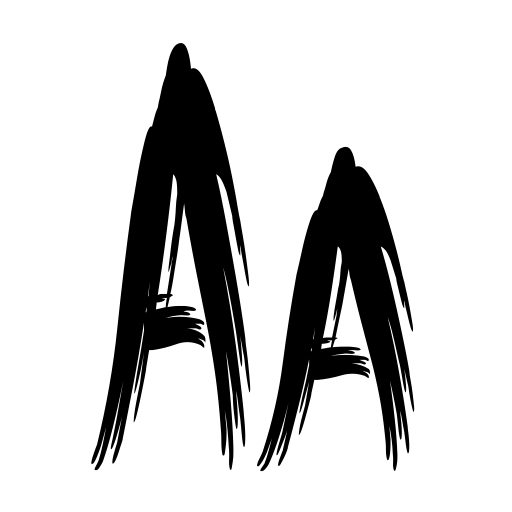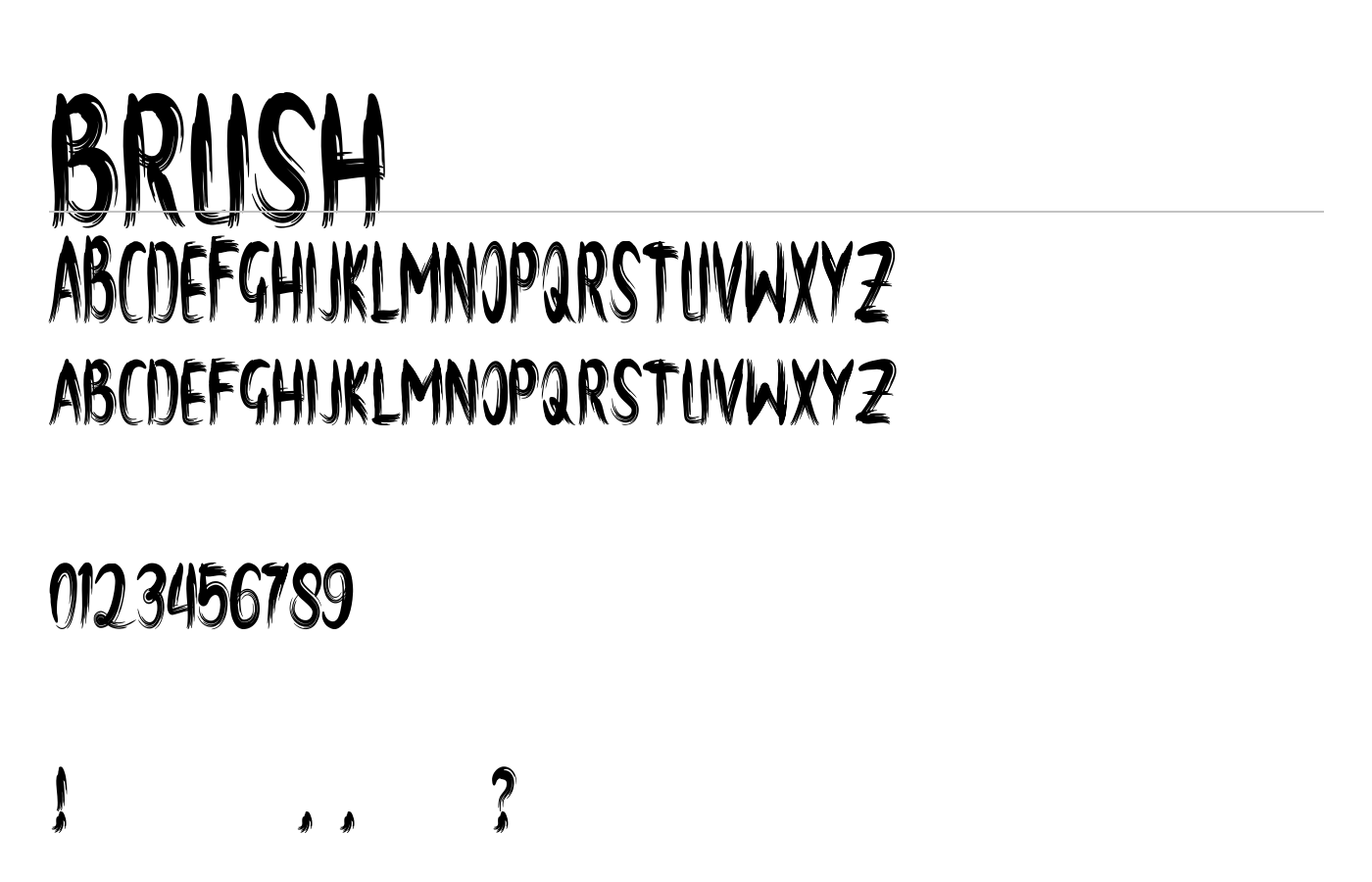
Brush Font is a distinctive, hand-drawn typeface with a bold, textured look that mimics the strokes of a paintbrush. Its tall, narrow letters and rough edges create a dynamic, artistic vibe, making it perfect for creative projects, eye-catching headlines, and expressive branding that seeks a raw, edgy feel. This font shines in designs that want to convey energy, uniqueness, and a handcrafted touch.